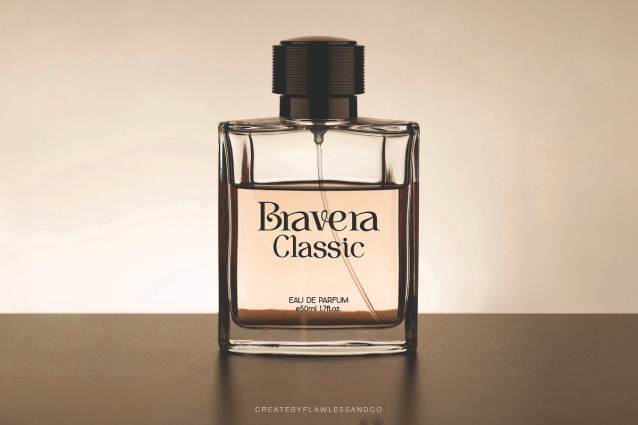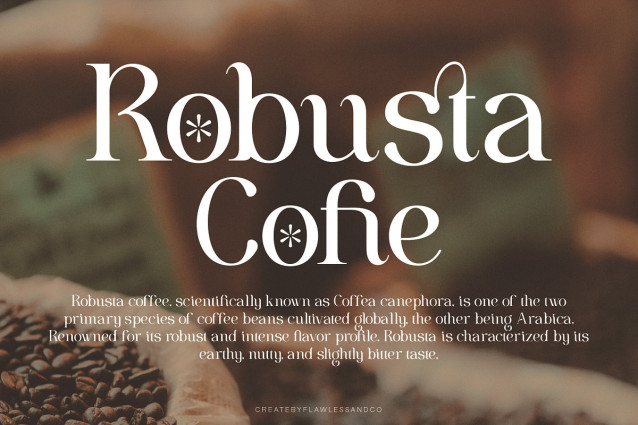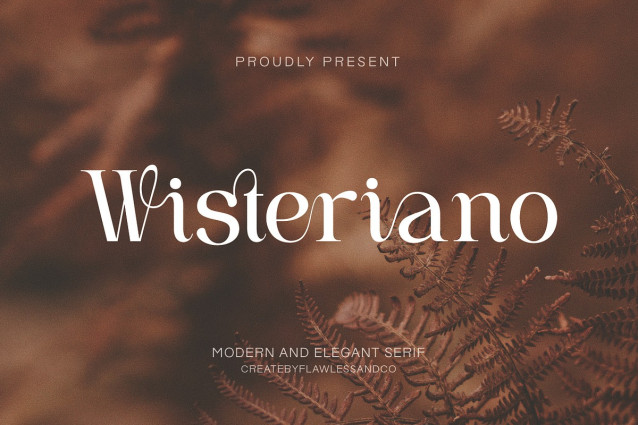
Wisteriano Font
Wisteriano Font is a modern and elegant serif font that blends timeless sophistication with a contemporary feel. Featuring graceful curves and refined details, this typeface is perfect for branding, wedding invitations, editorial layouts, luxury packaging, and high-end fashion designs. Wisteriano adds a touch of class and beauty to any project that calls for a polished and stylish presentation.